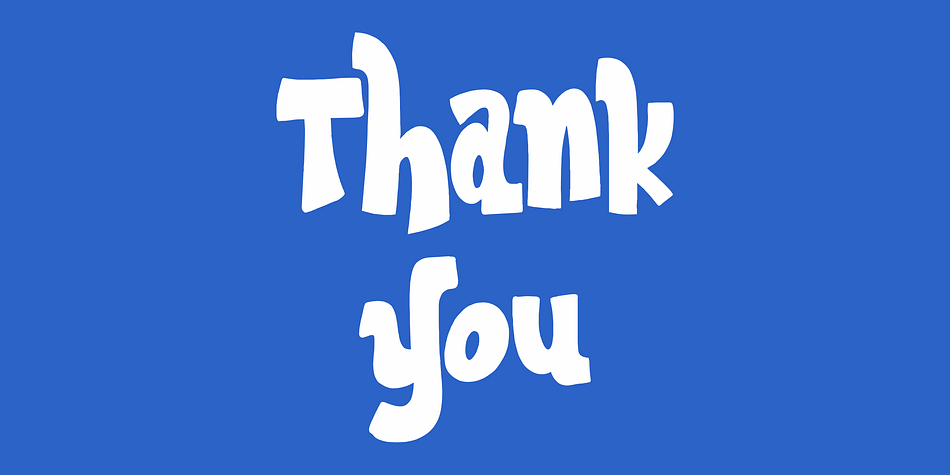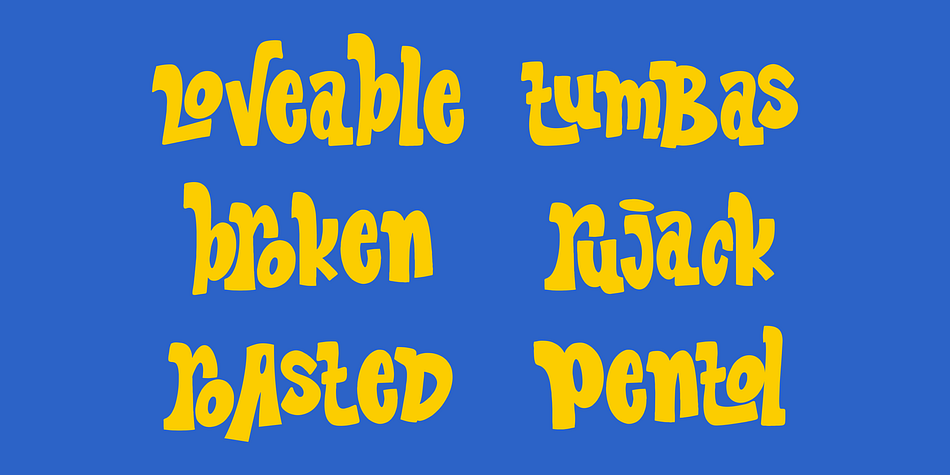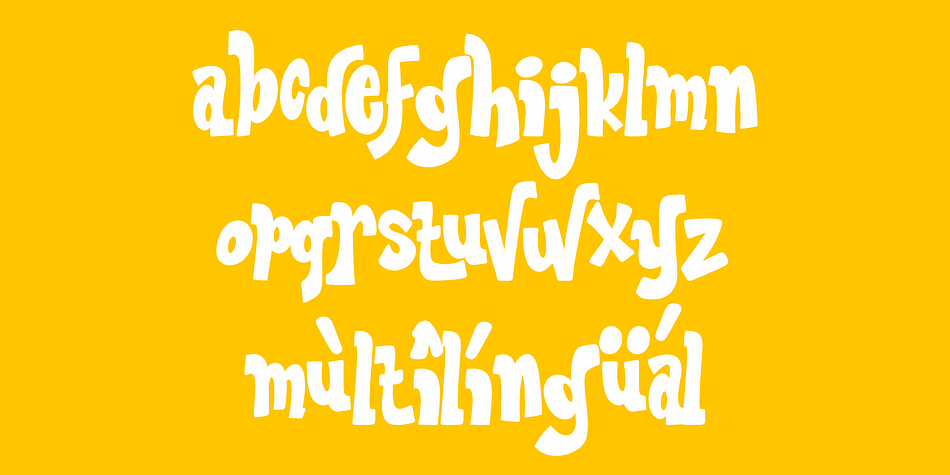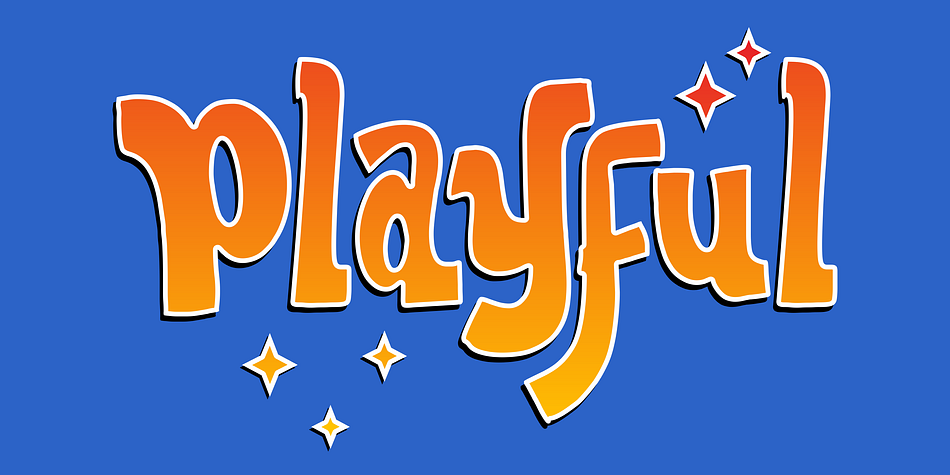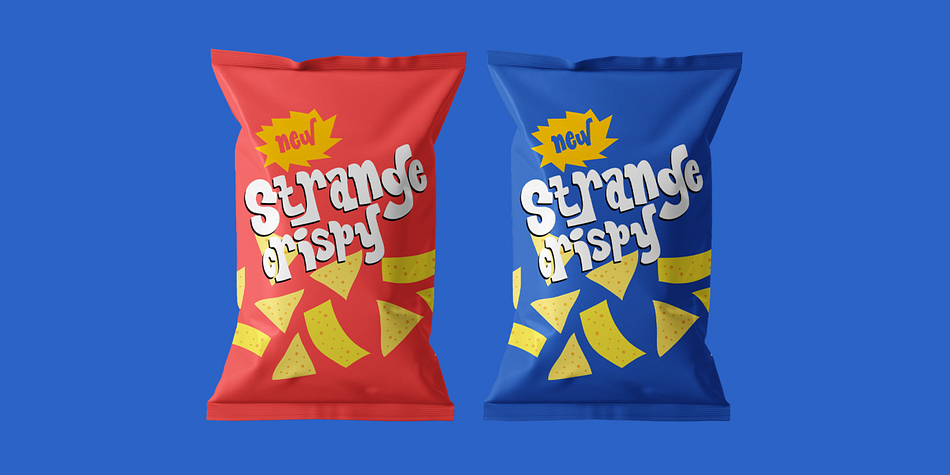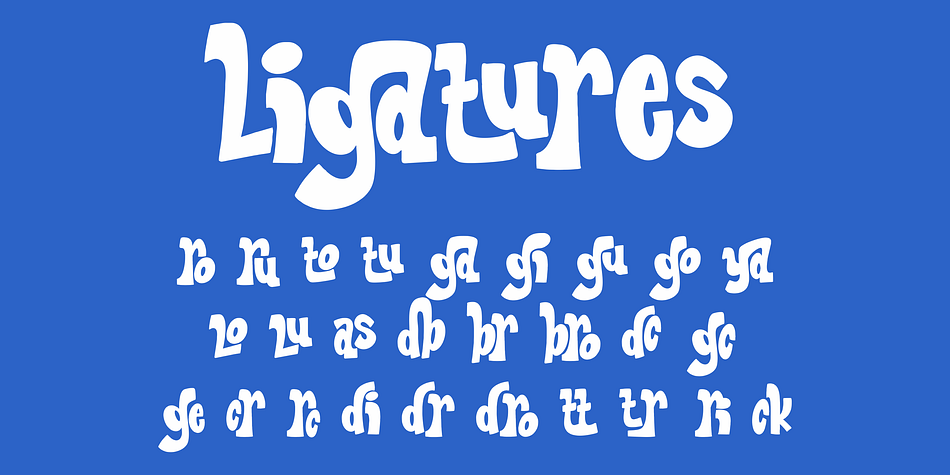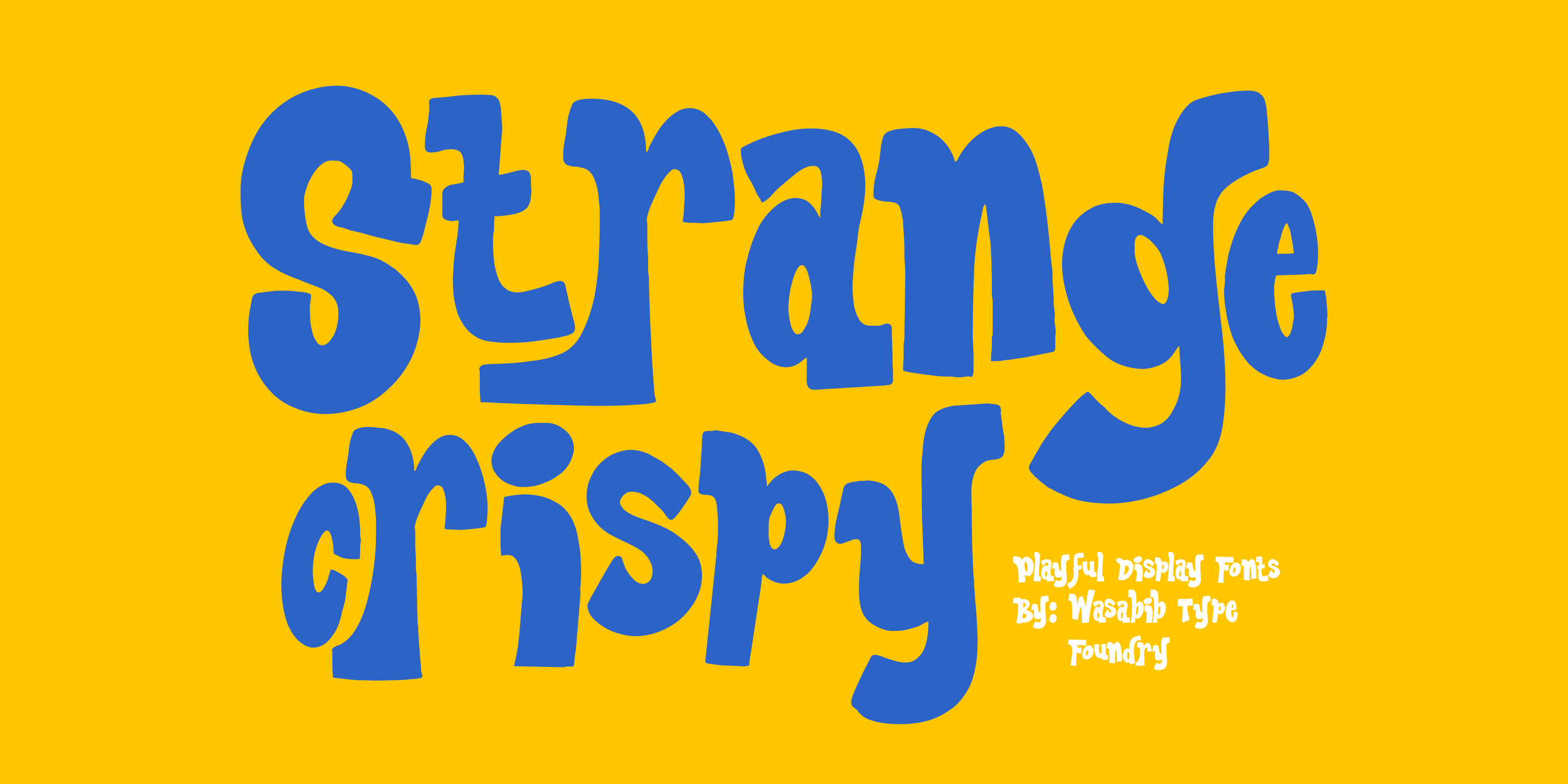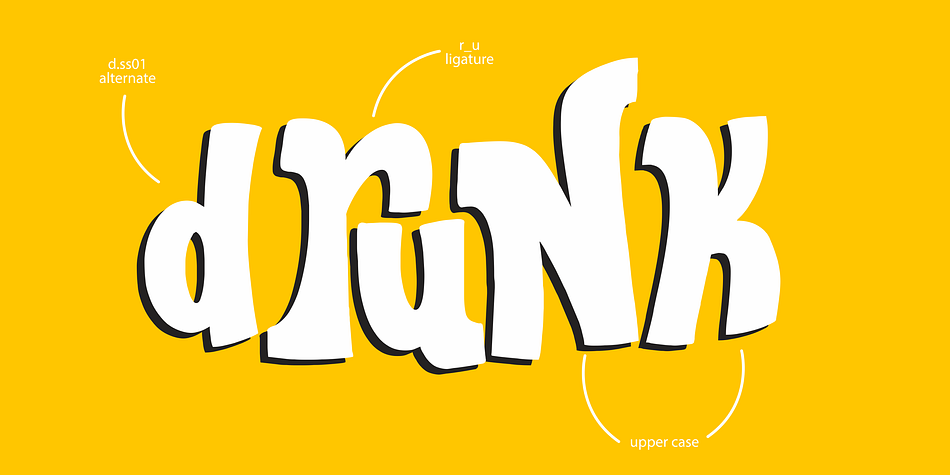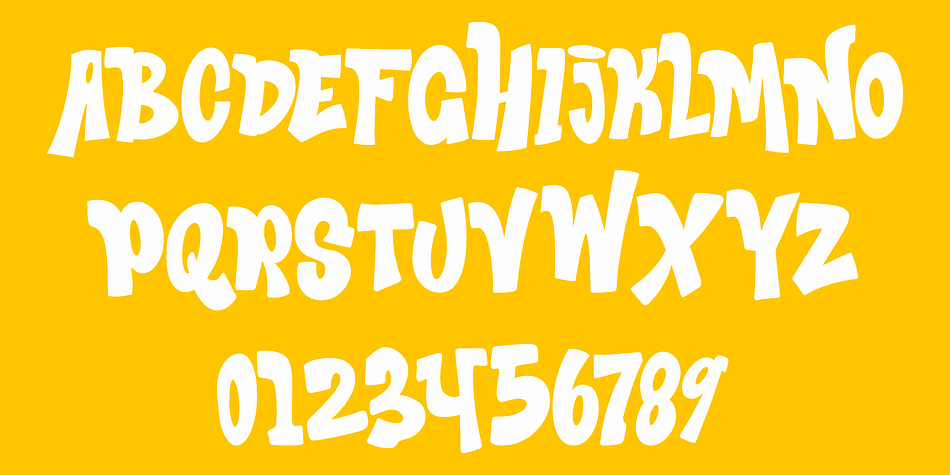
Strange Crispy
Designed by Miftahul Habib, Strange Crispy is a kids font family published by Wasabib Type Foundry.
WTF Strange Crispy - is a playful bounced display font that inspired by retro typeface, I make it with 100% hand drawn to get the artistic look. defenetly will make your design stand out. you can mix between upper case on lower case for your typography or logotype.
Perfectly suited for quotes, branding, logos, and social media posts, “WTF Strange Crispy” has a unique touch to every design, ensuring it stands out and makes a lasting impact. Illuminate your content with the enchanting allure of “WTF Strange Crispy” font, and let your creativity shine in every project.
Designer Miftahul Habib